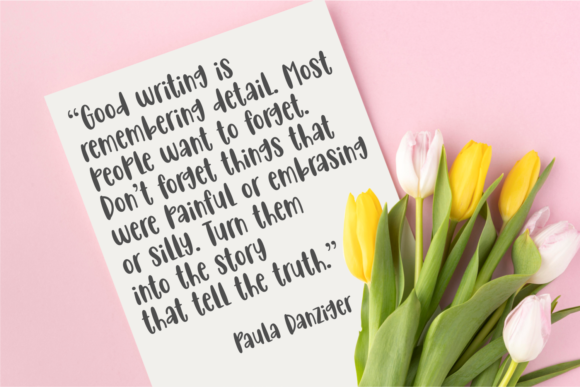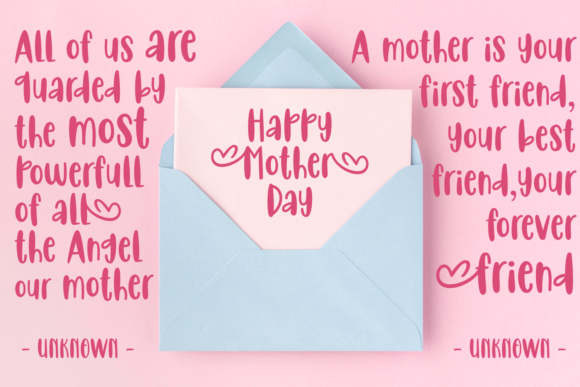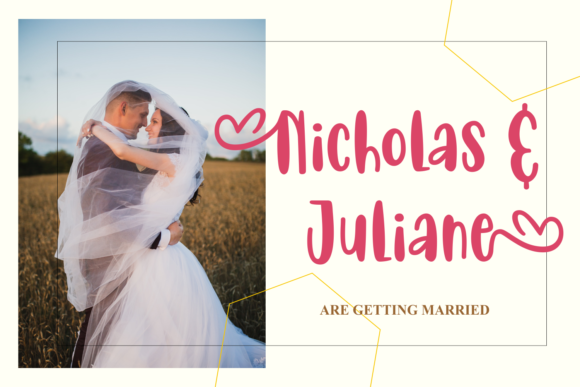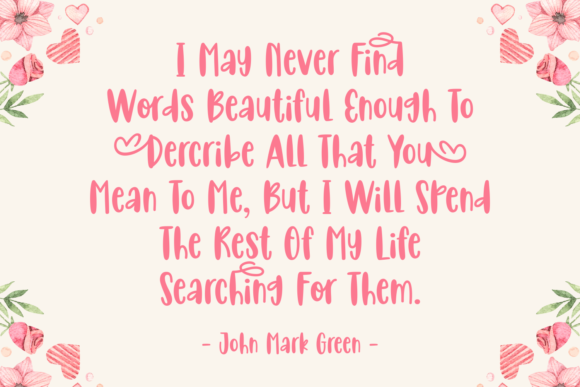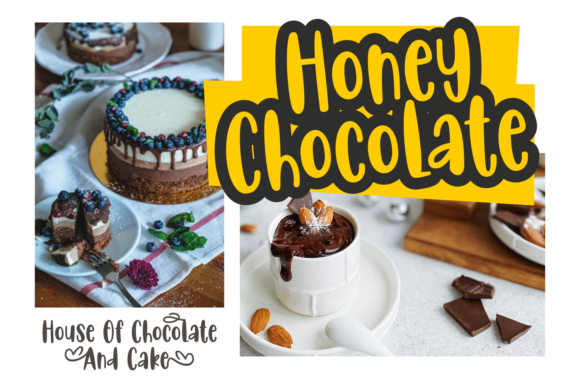
Introduction to Riverside Story Font
Riverside Story is a cute and whimsical display font, featuring a lovely style.
No matter the topic, this font will be an incredibly asset to your fontsโ library, as it has the potential to elevate any creation .